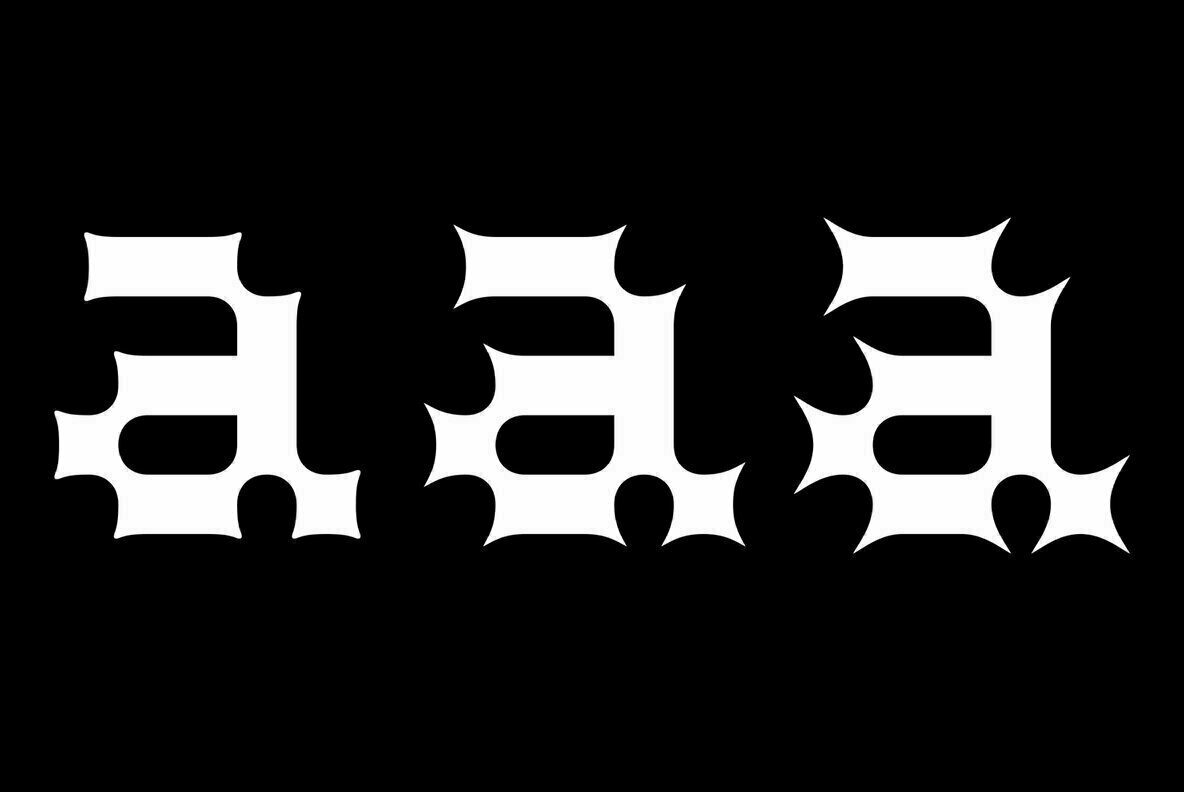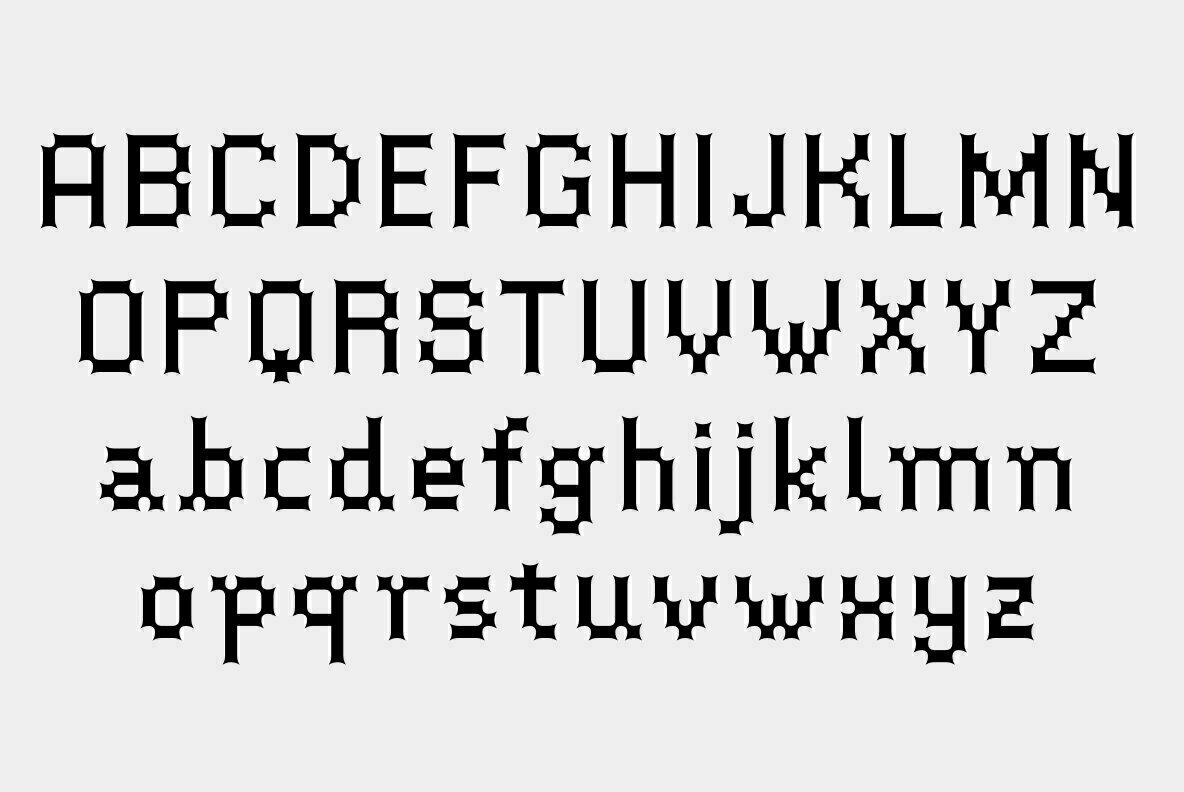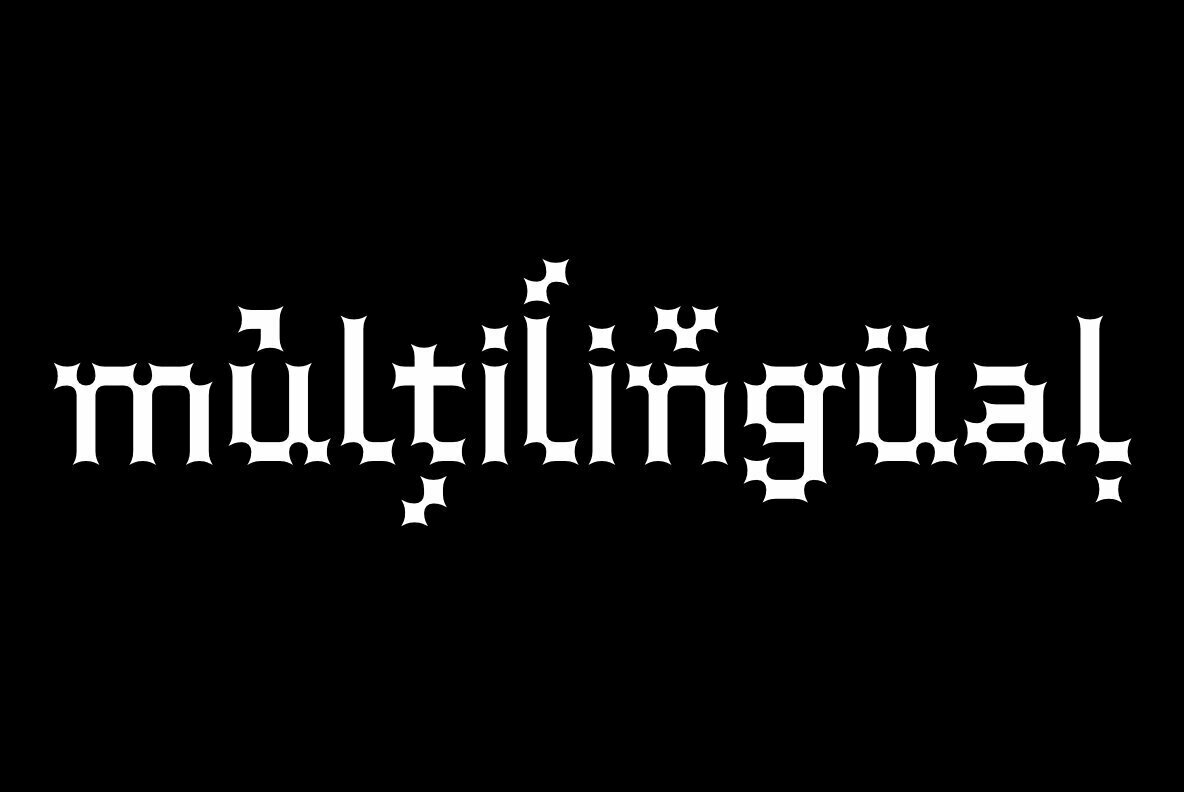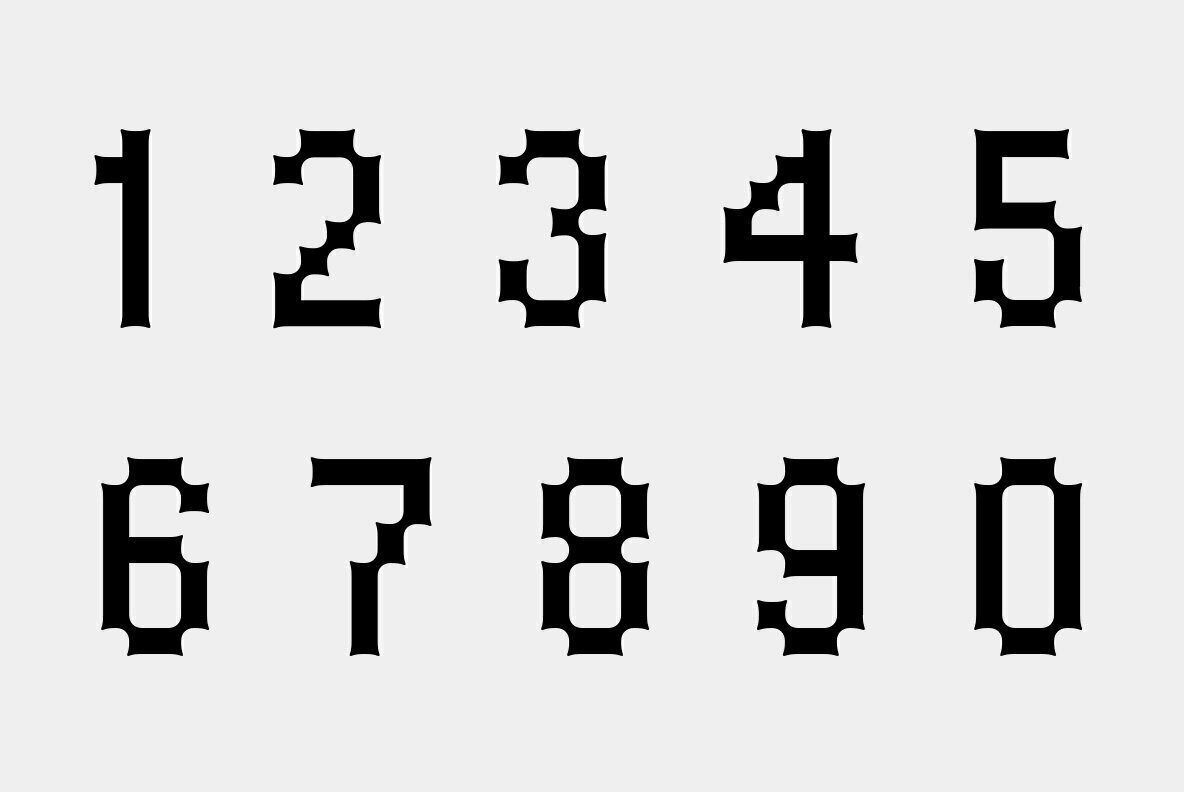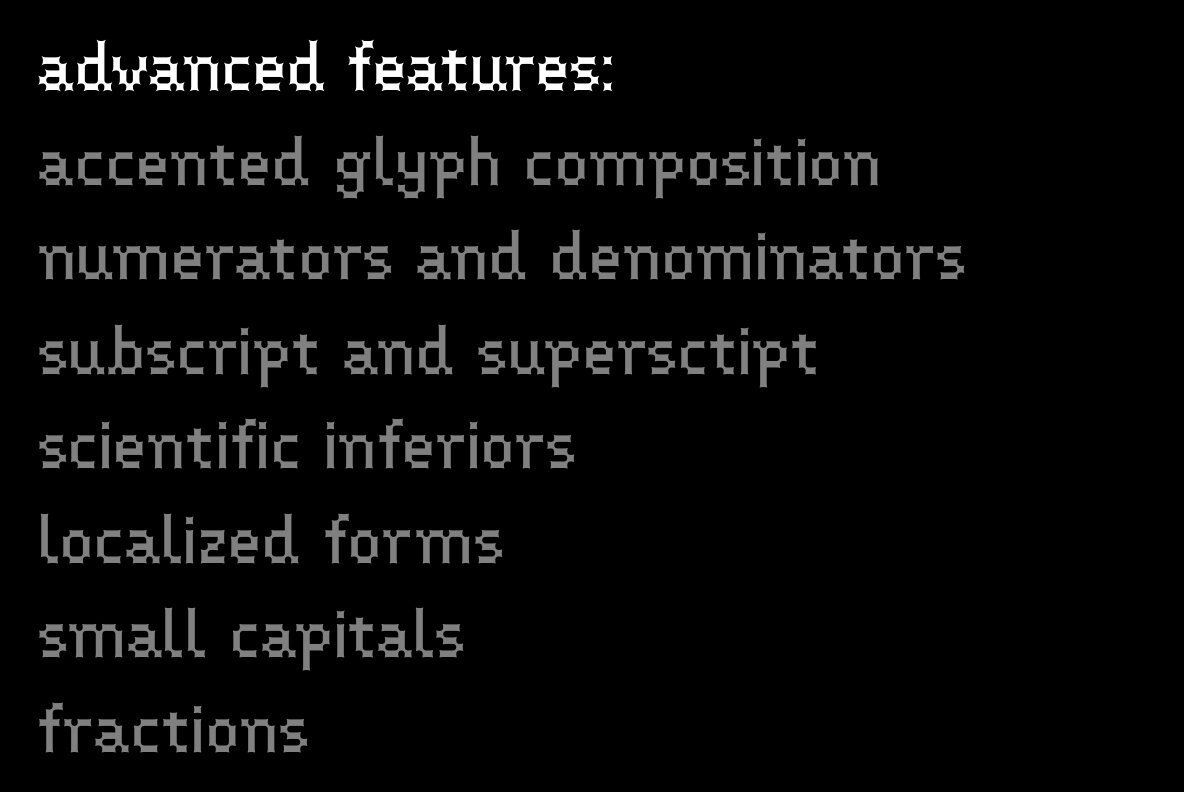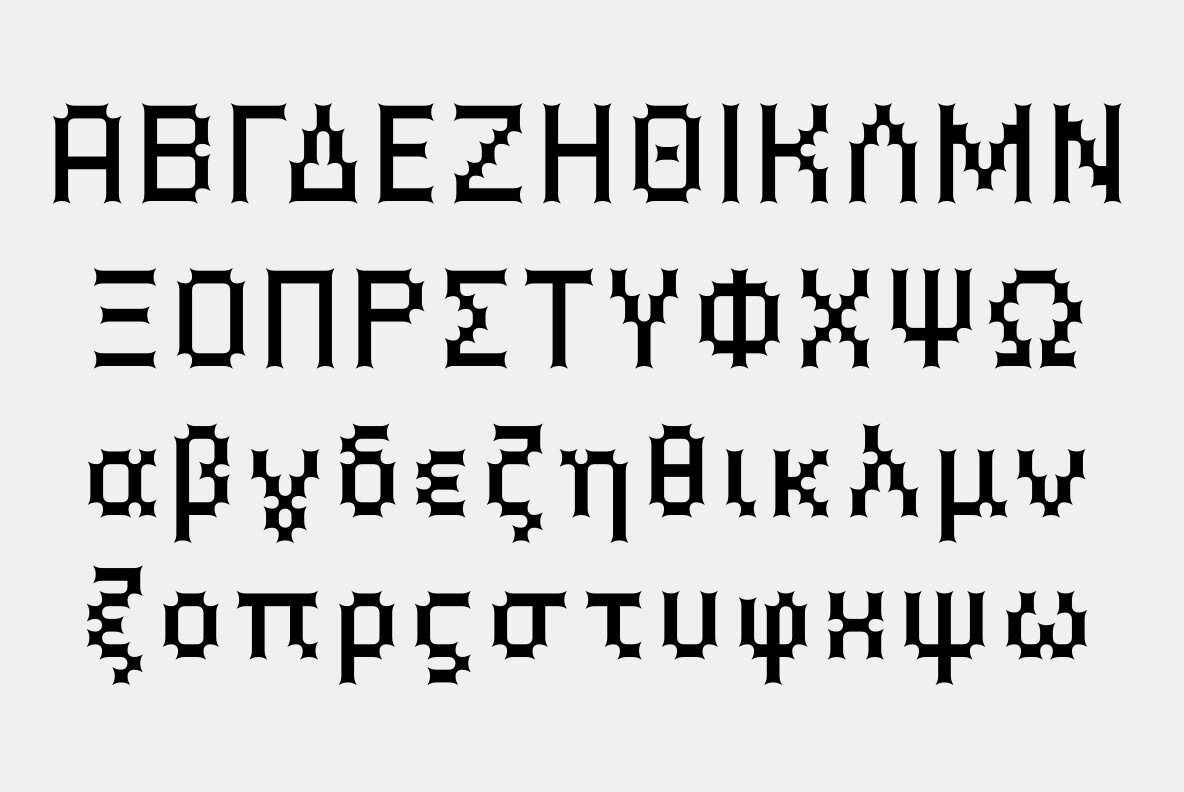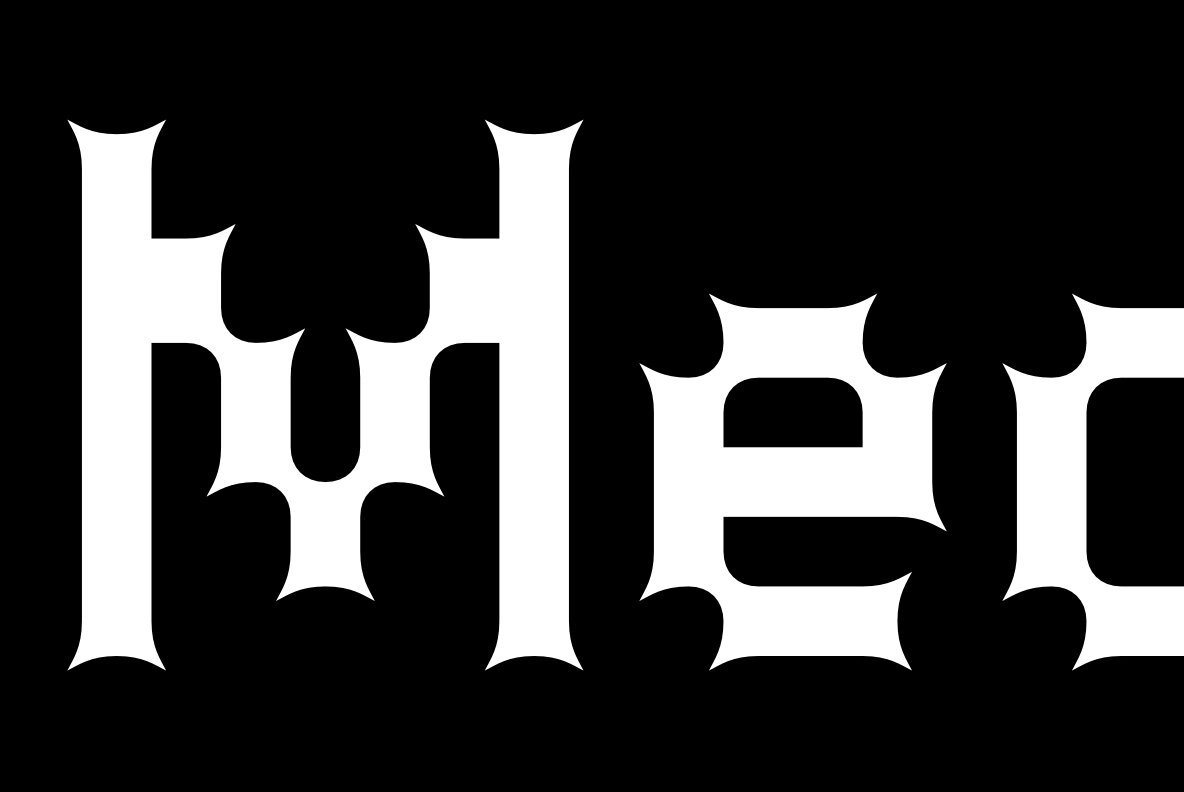
Medieval Pixel VP is a highly stylized family of three fonts that combine familiar pixelfont forms with unique sharp details - evocative of a fantasy and historical aesthetic, retro video games, and horror movies.
All styles include an extensive character set and numerous advanced OpenType features. Over 800 glyphs in each font ensure full support for over 200 languages.